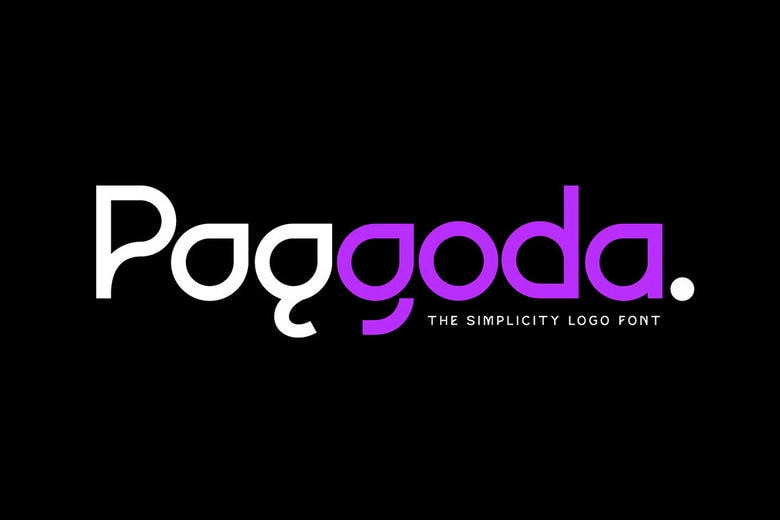
Paggoda Font
Paggoda is a clean and minimalistic logo typeface with the exact amount of simplicity and great emphasis. Paggoda is original and is geometric in balance with a futuristic look that is perfect to use on brand identities, tech startups, product packaging and creative logo designs.
The unusual shape of its characters and a contemporary form of structure make the Paggoda a stylish visual phenomenon that is graphically unique in digital and print worlds.
Paggoda Logo Font